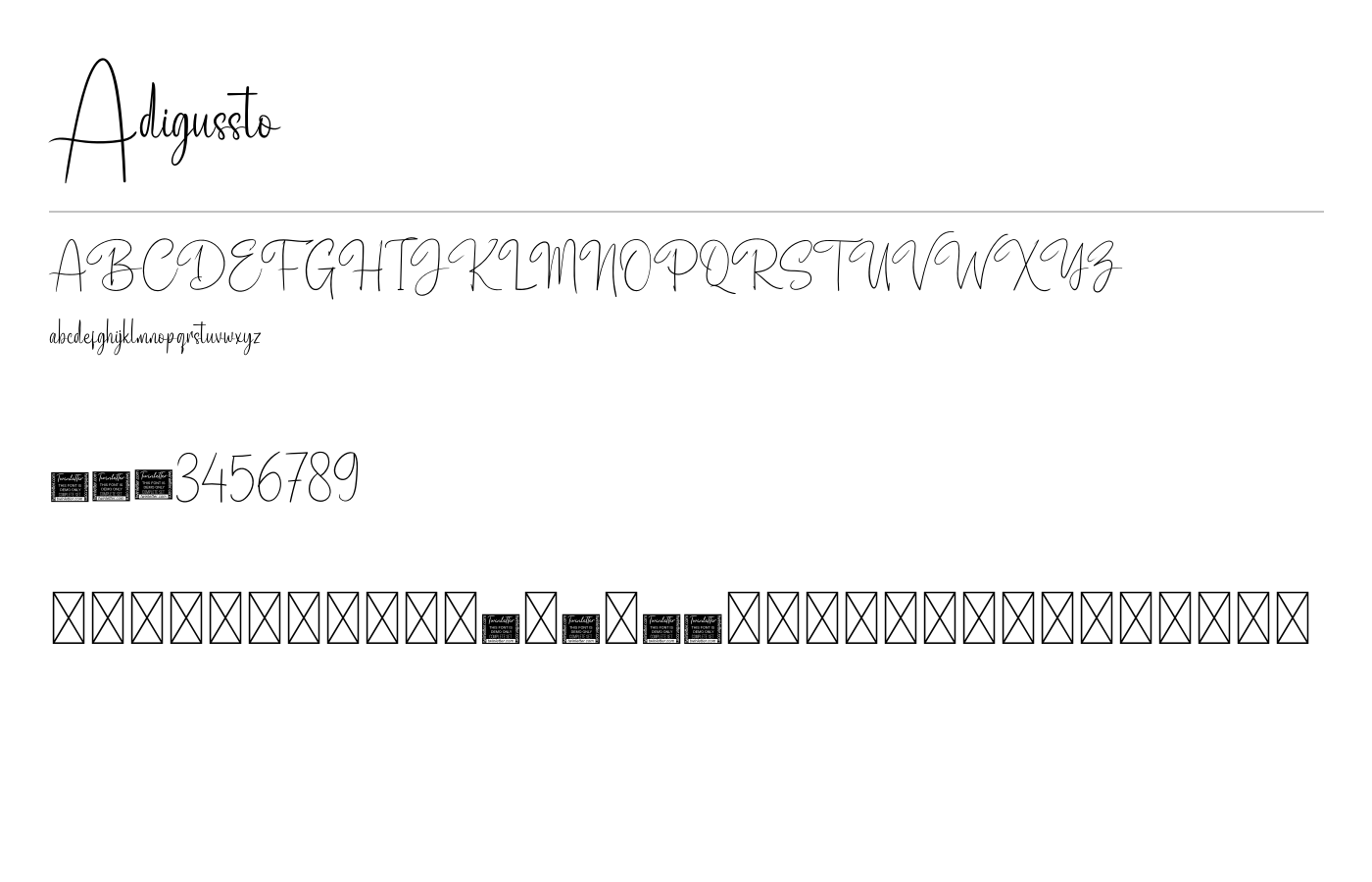
Adigussto is a delicate, modern script font with a hand-drawn feel, characterized by its slender, flowing lines and elegant curves. Its tall, narrow letterforms and fine stroke weight give it a refined, airy appearance perfect for sophisticated branding, invitations, and stylish headlines. This font adds a graceful, personal touch that works well in fashion, beauty, and creative projects seeking a subtle yet distinctive charm.
Adigussto Font
About Adigussto Font